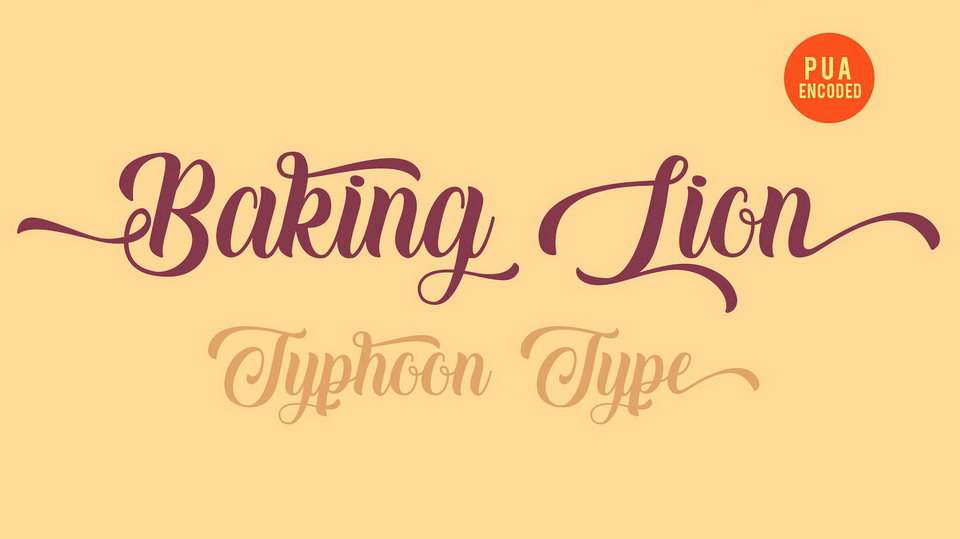
Download Baking Lion font – a lovely modern calligraphy script. It contains full set of glyphs, including multilingual support. Baking Lion script font perfectly suits for logos, labels, name tag, advertising, product packaging, clothing, social media & greeting cards.
Designer: TyphoonType